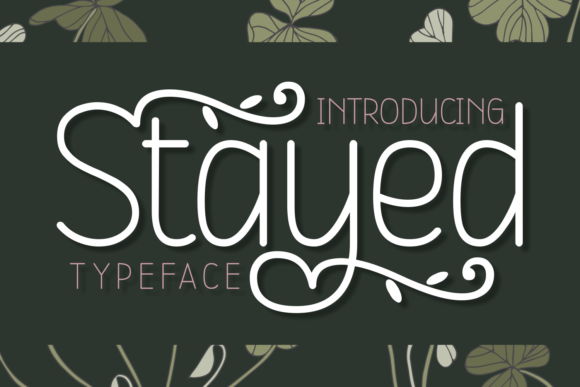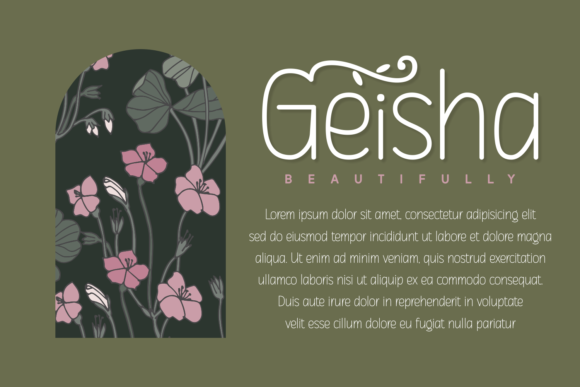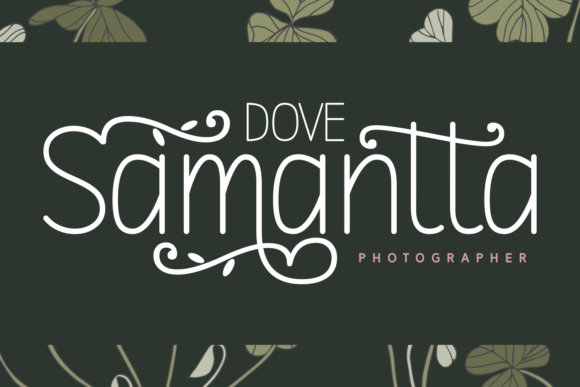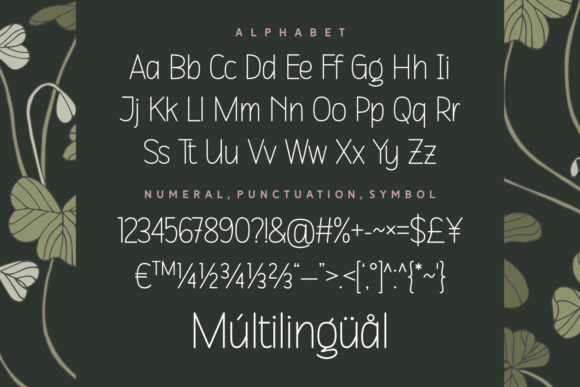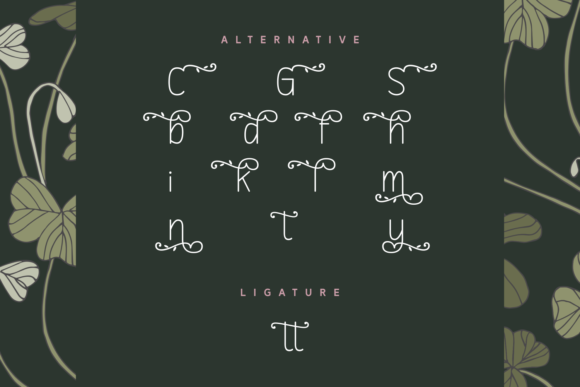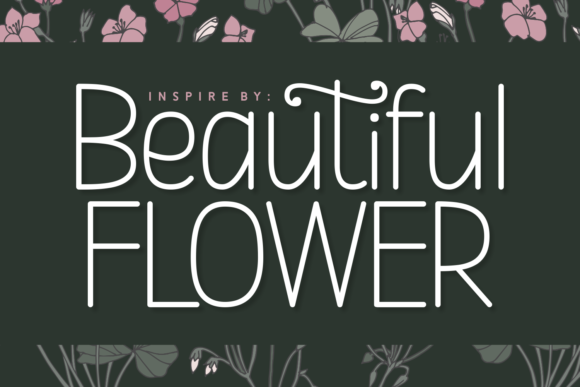
Stayed Font
About Stayed Font
“Stayed” font presents a captivating blend of charm and elegance, making it a striking choice for various design projects. Its stunning appearance enhances the visual appeal of wedding invitations, thank-you cards, quotes, greeting cards, logos, business cards, and any other design that benefits from a graceful handwritten touch.
The charm of “Stayed” font lies in its ability to evoke both a warm and sophisticated ambiance. The handwritten style adds a personal touch to your designs, creating an inviting and engaging visual experience. Whether you’re aiming for a romantic wedding invitation or a professional business card, this font is tailored to leave a lasting impression.
One notable feature of “Stayed” is its PUA encoding, providing convenient access to a plethora of glyphs and swashes. This feature ensures a seamless design process, allowing you to effortlessly incorporate unique elements into your projects. The flexibility afforded by PUA encoding empowers you to explore the full creative potential of the font.
Imagine “Stayed” as the perfect typeface to bring a touch of elegance and handwritten charm to your creative works. Let it be the key element that elevates the aesthetics of your designs, making them stand out with grace and sophistication.
In summary, “Stayed” font is more than just a typeface; it’s a harmonious blend of charm and elegance, crafted to enhance a wide array of design projects. With its PUA encoding, this font offers accessibility to diverse glyphs and swashes, providing you with the tools to create visually stunning and unique designs that leave a lasting impression.